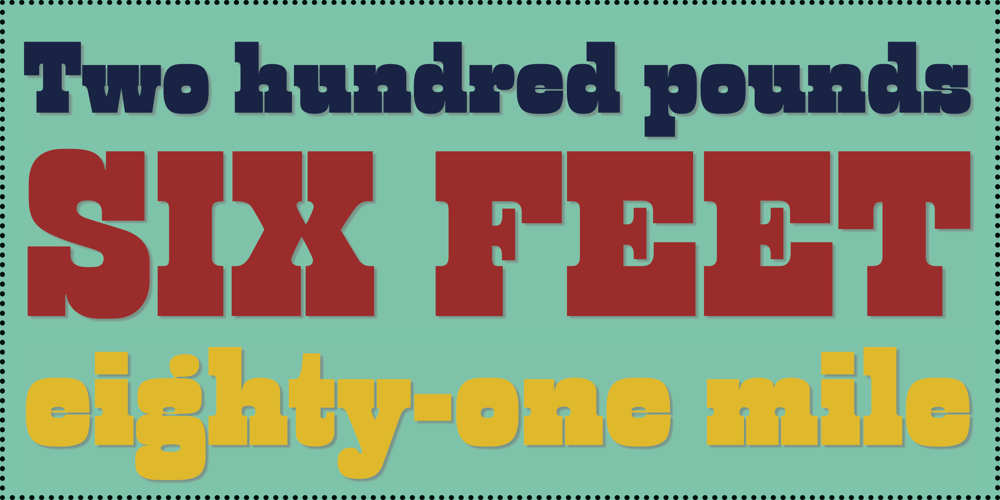
PL Barnum Block
PL Barnum Block font
PL Barnum Block Font Family was designed by Dave West and published by Monotype. PL Barnum Block contains 1 styles and family package options. Designed by Dave West and released in 1960, the name Barnum associates this face with the famous nineteenth-century traveling American circus and showman P.T. Barnum. The wood-cut influence of the letter makes the PL Barnum Block font ideal for posters, signage and creative titling and packaging.